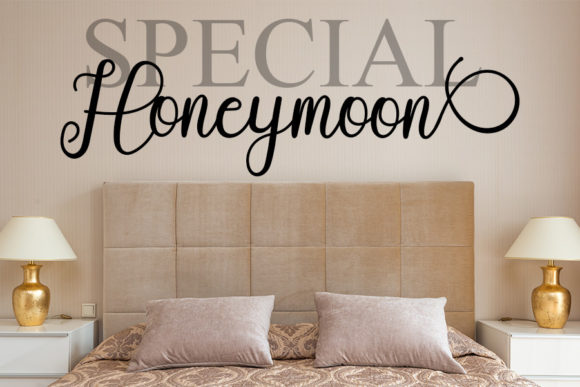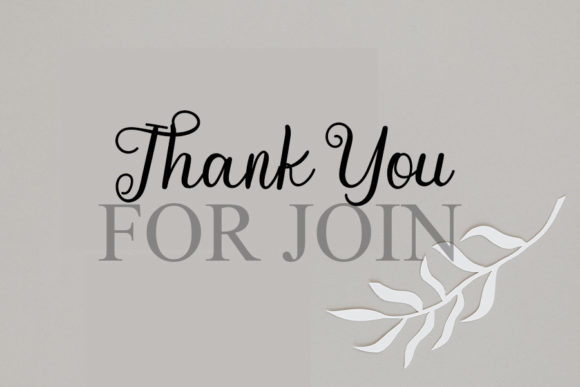
Introduction to Monthya Font
Have you ever found yourself rummaging through your scrapbook, reminiscing about a special moment, and wishing you could relive the emotions of that perfect day? For designers, capturing the essence of a moment in a creative project can be just as magical. And that’s exactly what the Monthya Font is designed to do – add a touch of whimsy and romance to your next project.
With its enchanting handwritten style, Monthya Font is the perfect design resource for anyone looking to add a personal touch to their work. From greeting cards to headlines, this versatile script font has a wide range of applications, making it a valuable addition to any designer’s toolkit. Whether you’re working on a high-quality brochure or a simple social media graphic, Monthya Font is sure to elevate your design and make it stand out.
Key Features of Monthya Font
- High-quality design resource suitable for creative projects, offering a unique and elegant aesthetic.
- Unique characteristic: Monthya Font features a distinctive blend of modern and vintage elements, making it a standout choice for designers seeking a unique look.
Honest Review: Monthya Font
- Unique Design: The Monthya Font boasts a distinctive, hand-drawn feel that sets it apart from other fonts.
- High-Quality: The font is well-crafted, with crisp lines and smooth curves that make it perfect for digital designs.
- Limited Character Set: The Monthya Font has a relatively small character set, which may limit its use in certain creative projects.
- Not Ideal for Body Text: The font’s unique design makes it more suitable for headlines and titles, rather than body text.
Overall, the Monthya Font is a solid addition to any designer’s toolkit. While it may have some limitations, its unique design and high-quality construction make it a valuable resource for creative projects.
Tips for Getting the Most Out of Monthya Font
Use Monthya Font with a transparent background to create a clean and modern look. Experiment with different font sizes and styles to add visual interest to your design. You can also use Monthya Font in combination with other design resources to create a unique and eye-catching design.
Common Use Cases for Monthya Font
Monthya Font is perfect for a variety of creative projects, including presentations, social media graphics, blog posts, and more. It’s also great for use in branding and marketing materials, such as business cards, brochures, and websites.